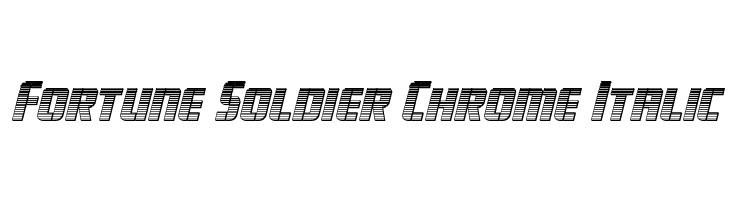
A bold, angular, and italic font with a futuristic and dynamic style.
A bold, futuristic font with sharp angles and a geometric structure.
A bold, futuristic font with a gradient effect created by horizontal lines.
A bold, semi-italic font with a modern, sporty design.
A bold, italic font with a dynamic and geometric style.
A bold, geometric font with a modern, futuristic style.
A bold, 3D outlined font with a futuristic and geometric design.
A bold, condensed, and italicized font with high contrast and dynamic angles.
A bold, geometric font with a halftone effect, ideal for modern designs.
A bold, 3D outlined font with a futuristic and angular design.